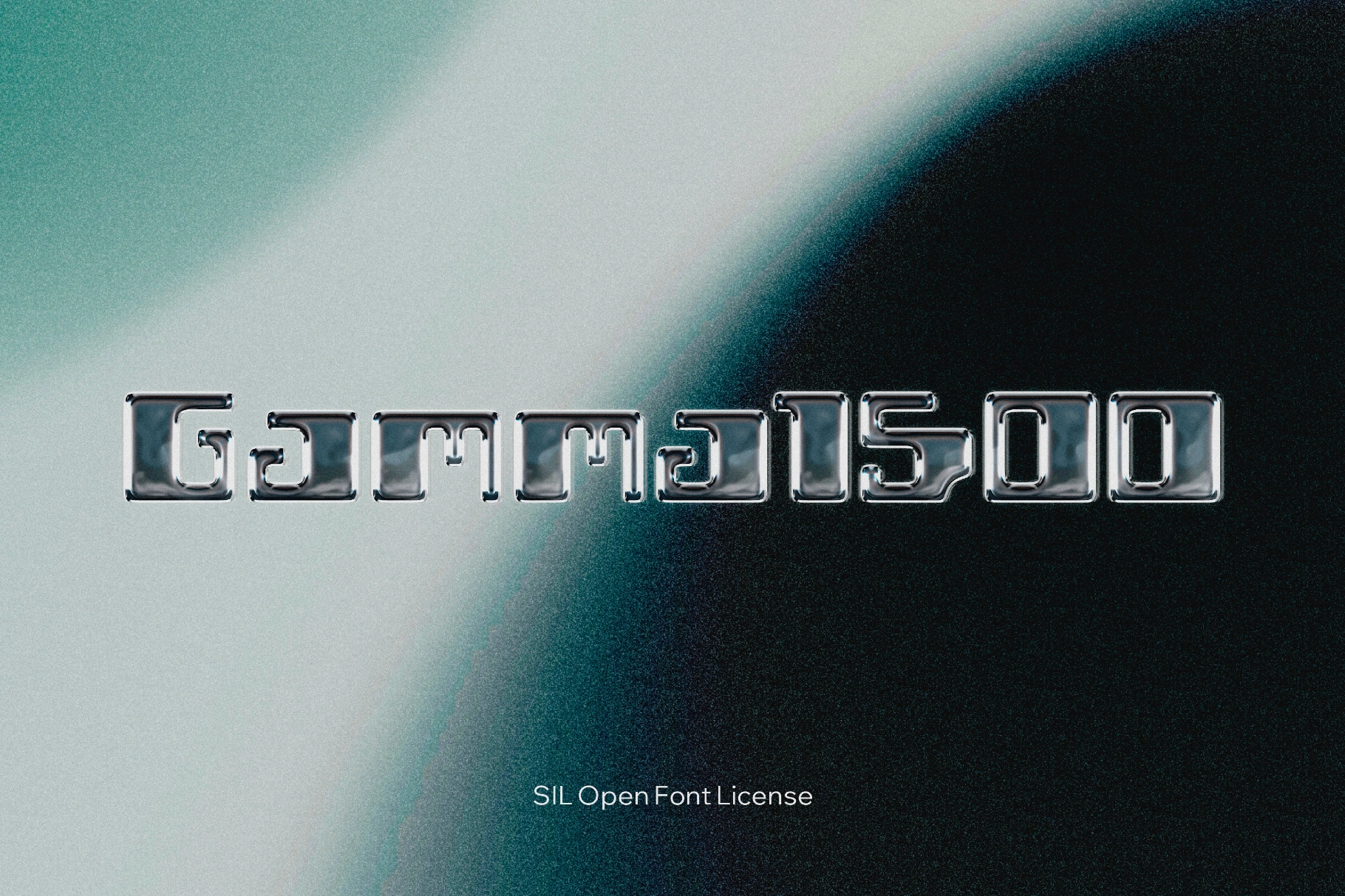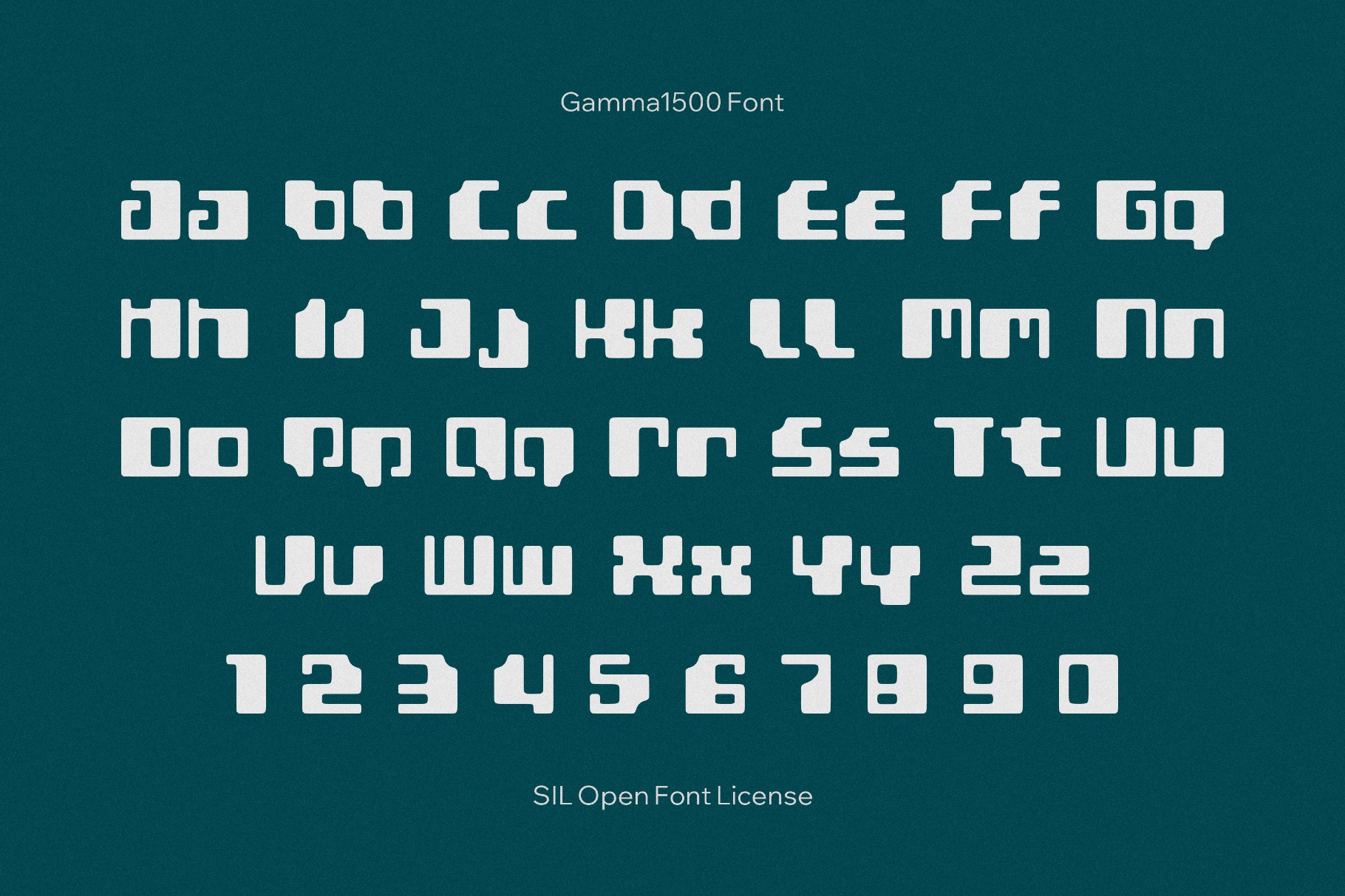
Gamma1500 Font
Gamma1500 is a wide, squared type with engineered curves, rounded characters, and tightly spaced. It turns late-60s computer lettering into a thick, block retro-futuristic font. It’s a strong choice for futuristic logos, control panels, arcade bezels, poster headlines, game titles, tech branding, interface mockups, synth and electronic music covers, and motion graphics.